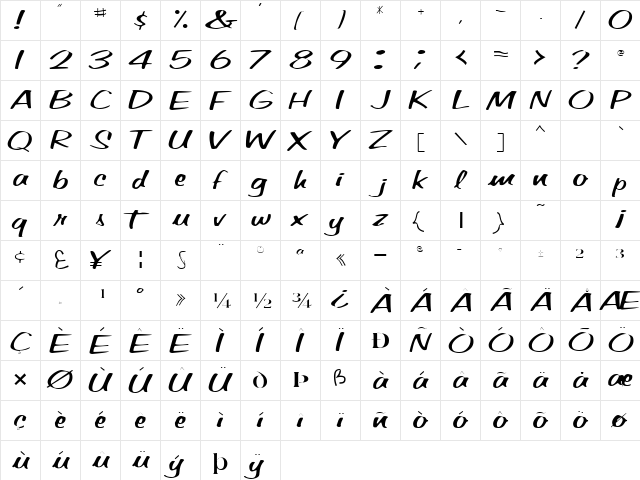
SeyburnScriptSSK Regular
Design Context for SeyburnScriptSSK Typeface
SeyburnScriptSSK flows with the natural rhythm of handwritten lettering, making it ideal for designs that call for warmth and personal expression.
Font Pairing: Combine SeyburnScriptSSK with a simple geometric sans for maximum contrast — the tension between flowing curves and clean structure is a classic typographic pairing.
Pro Tip: Use SeyburnScriptSSK for short runs of text — names, titles, or taglines. Extended body copy in script faces tires the eye quickly.